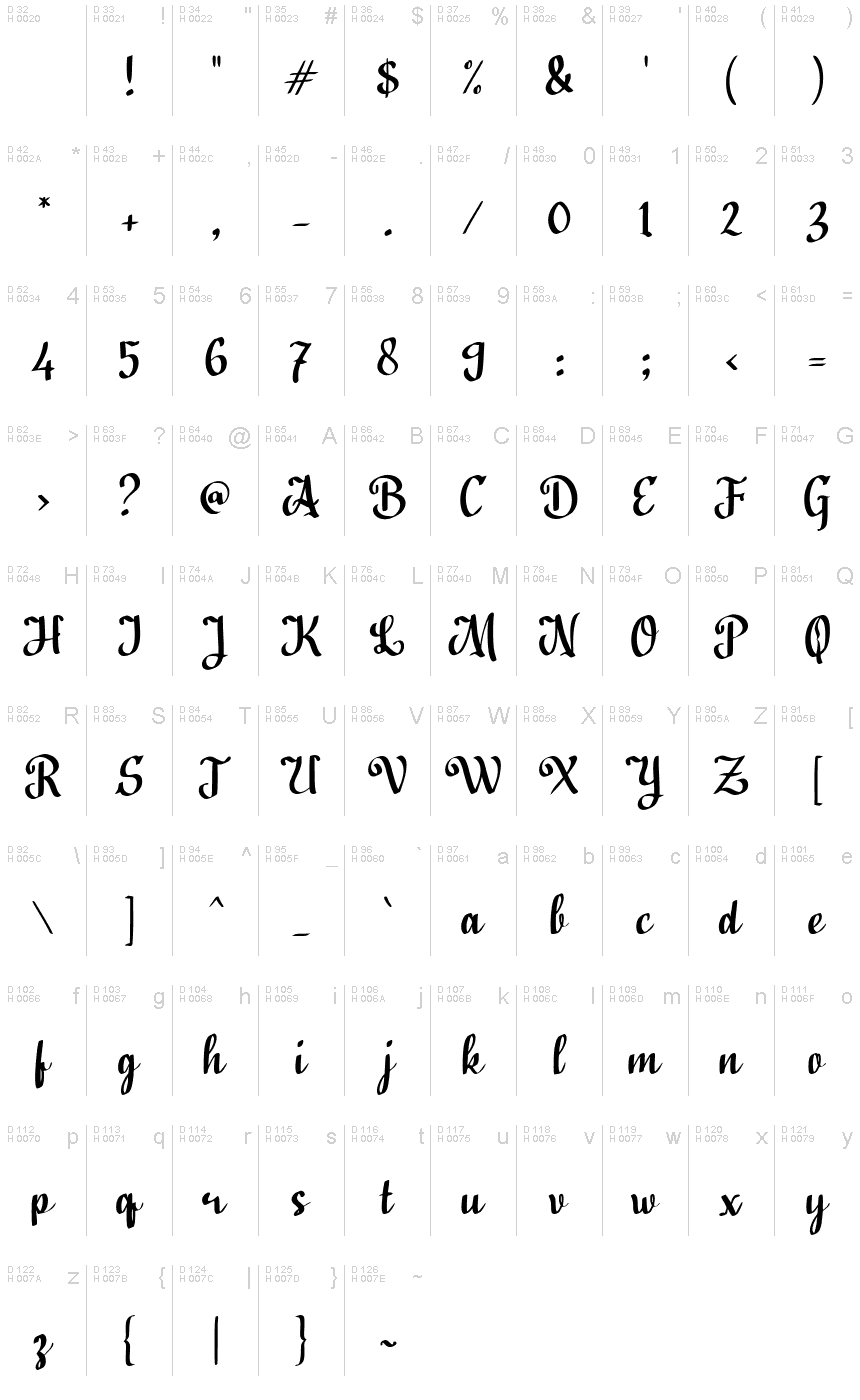
Define Nominate
Define Nominate Wahyu Eka Prasetya TrueType字体赞助软件
Introducing Define Nominate, an old-school calligraphy font designed by Wahyu Eka Prasetya. Its light weight makes it perfect for creating stunning logos, posters, invitations, and other creative projects.